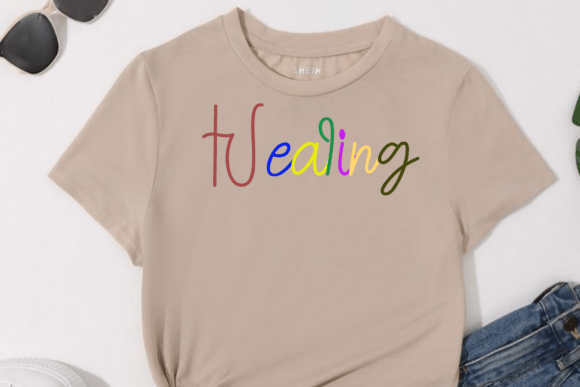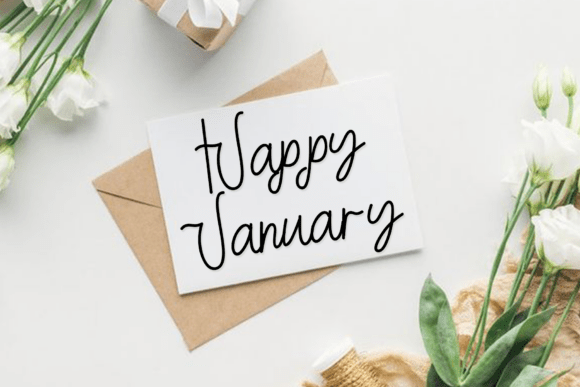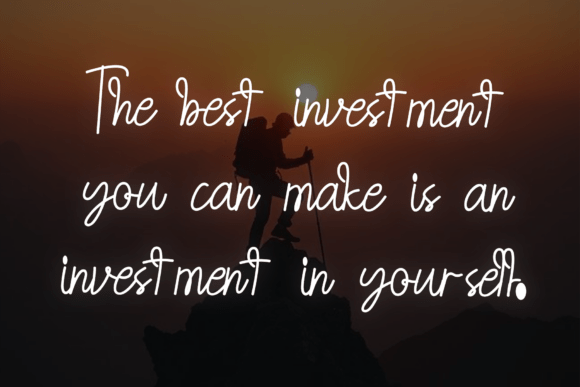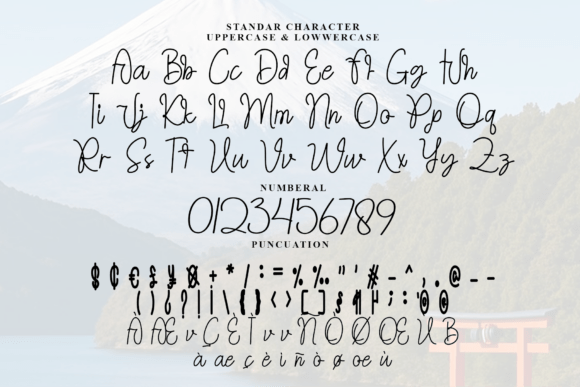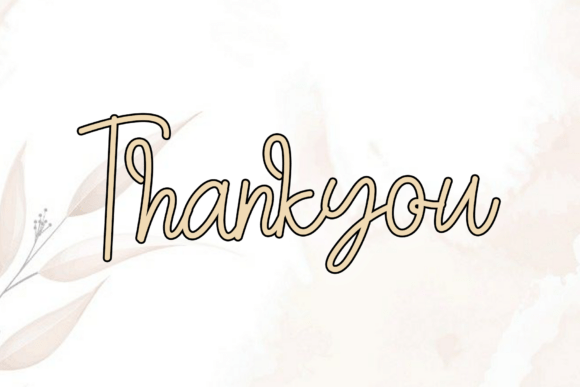
Introduction to Highlighty Font
Have you ever found yourself sitting in a quiet café, surrounded by the gentle hum of espresso machines and the soft chatter of fellow creatives, with your design project staring back at you on the screen? That’s where I was when I stumbled upon the Highlighty Font – a game-changer that breathed new life into my work.
As designers, we’re always on the lookout for that perfect design resource to elevate our creative projects. And, let me tell you, the Highlighty Font is a gem worth discovering. Its unique, professional aesthetic is not only visually stunning but also incredibly versatile, making it a valuable addition to any designer’s toolkit.
Whether you’re working on a travel photography project, creating branding for an outdoor gear company, or designing a sophisticated website, the Highlighty Font is sure to bring a touch of crisp elegance and clarity to your work. And, with its clean and approachable style, it’s a breeze to use – perfect for designers of all skill levels.
Key Features of Highlighty Font
- Unique and creative design ideal for creative projects and designs
- Includes 8 font styles with a transparent background for easy customization
- High-quality design resource suitable for a variety of applications
- Supports a wide range of languages and characters for global use
Honest Review: Highlighty Font
I recently had the chance to work with the Highlighty Font for a creative project and I must say it’s been a game-changer. This font is a fantastic design resource that offers a high quality, modern look that’s perfect for any project.
- ✨ Transparent background, allowing for easy customization
- ✨ Wide range of styles and weights to choose from
- ⚠️ Limited availability of language support for non-English characters
- ⚠️ Some users may find the font too bold or overpowering for certain designs
Overall, I’m really impressed with the Highlighty Font. It’s a fantastic addition to any designer’s toolkit and is sure to elevate any creative project. With its high-quality design, free download option, and transparent background, it’s a must-have for any designer looking for a reliable design resource.
Highlighty Font
The Highlighty Font is a high-quality design resource ideal for creative projects. Its transparent background and elegant design make it perfect for adding a touch of sophistication to your work.
Tips for Getting the Most Out of Highlighty Font
Here are some tips to help you get the most out of the Highlighty Font:
- Experiment with different font sizes and styles.
- Combine the Highlighty Font with other design elements for a unique look.
- Use the font to highlight important information or draw attention to specific elements. Alternatives to Highlighty Font
- Choose a quote and type it out in the Highlighty Font.
- Add a transparent background to make the text stand out.
- Combine with a simple background image or color to create a visually appealing design.
- Use a contrasting background color to make the text stand out.
- Add a few decorative elements, such as stars or flowers, to create a whimsical design.
- Choose a social media platform and create a design that fits its style.
- Type out the text in the Highlighty Font, making sure to use a clear and readable font size.
- Add a transparent background and combine with other design elements, such as icons or images.
- Use a bold and bright color scheme to create a visually appealing design.